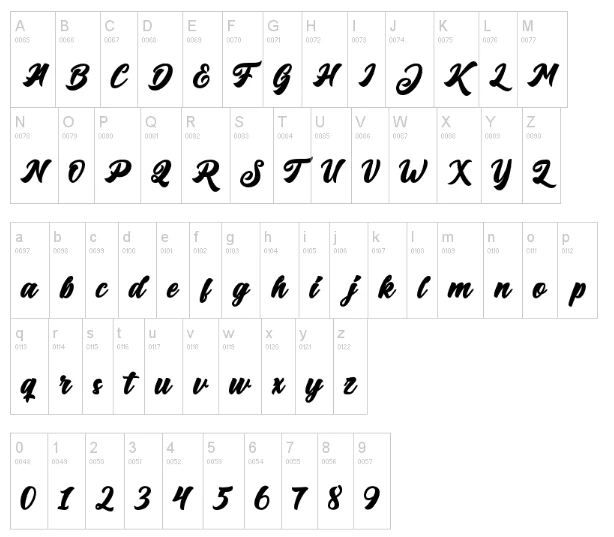
Big Blue Bold Script Font is a new script and brush font that is both attractive and functional. This is a brush-type font that is bold. It’s ideal for your work if you’re seeking for a bold, curved typeface. Big Blue Bold Script Font is a hand-brushed typeface with authentic Clean and Rough flaws and a bouncing baseline. It comes with a precisely matched marker font and an extremely useful set of extra Swash.
Ijemrockart created and shared the Font. The typeface is only available in latin language. The font is also a wonderful choice for logos, as it works well in a variety of styles. The curves of this Script and brush font may easily make any work stand out, and believe me when I say that it will relieve a lot of your stress. Uppercase, lowercase, Numeric, and some Special and Alternate characters are all included in the typeface. The font is consistent with Windows, Apple/Mac, Linux, Cricut, Silhouette, and other cutting machines.
Logos, handwritten quotations, product packaging, headers, posters, products, social media, greeting cards, and more look amazing with this typeface. I believe the Font is a perfect choice for a t-shirt design because it is both sinuous and attractive.